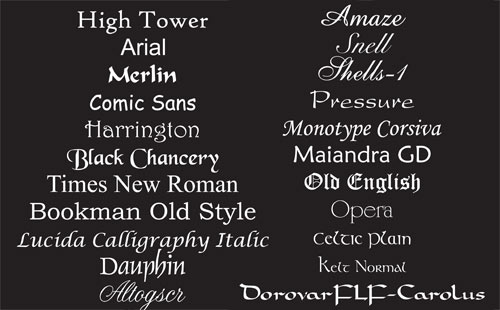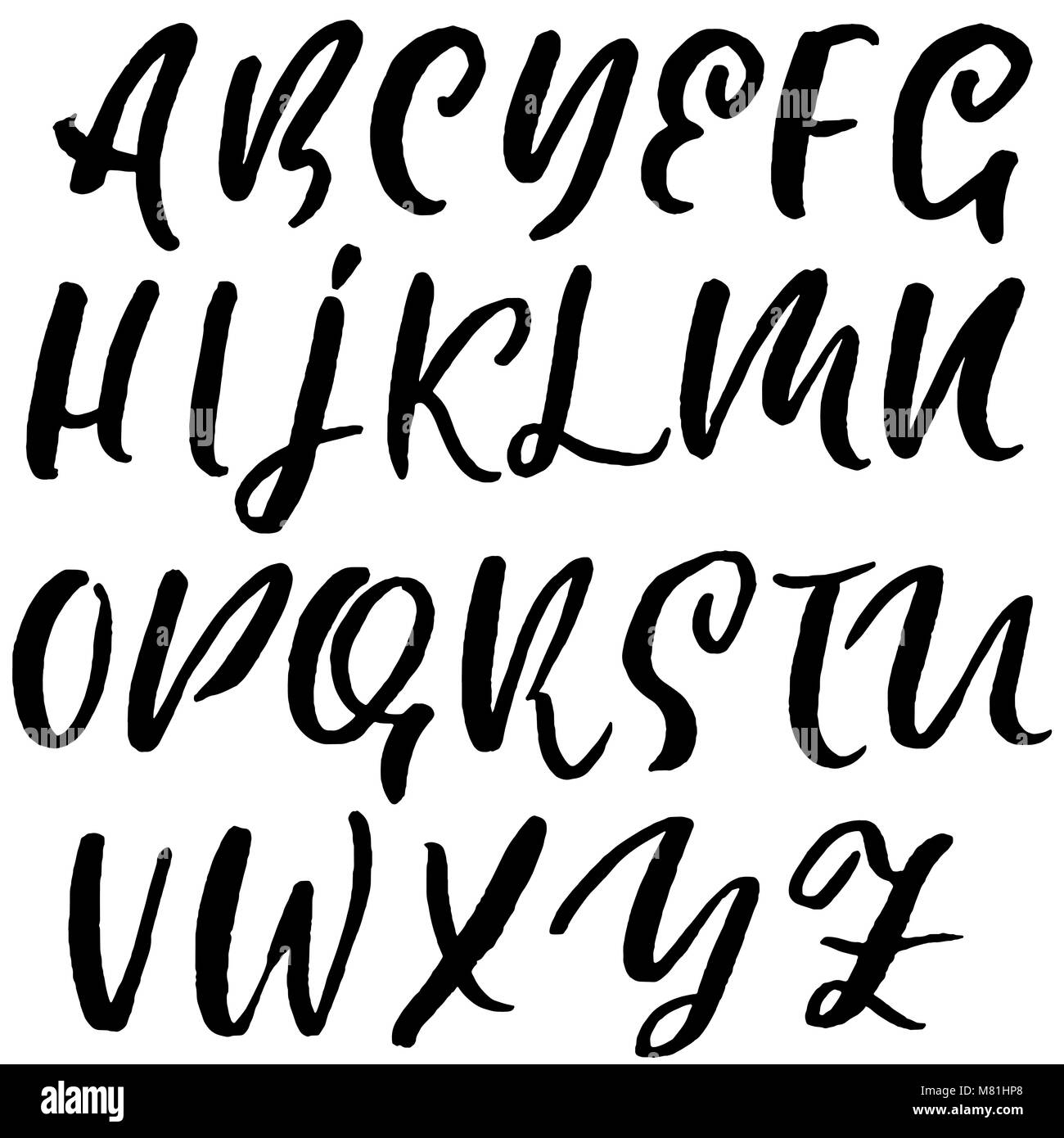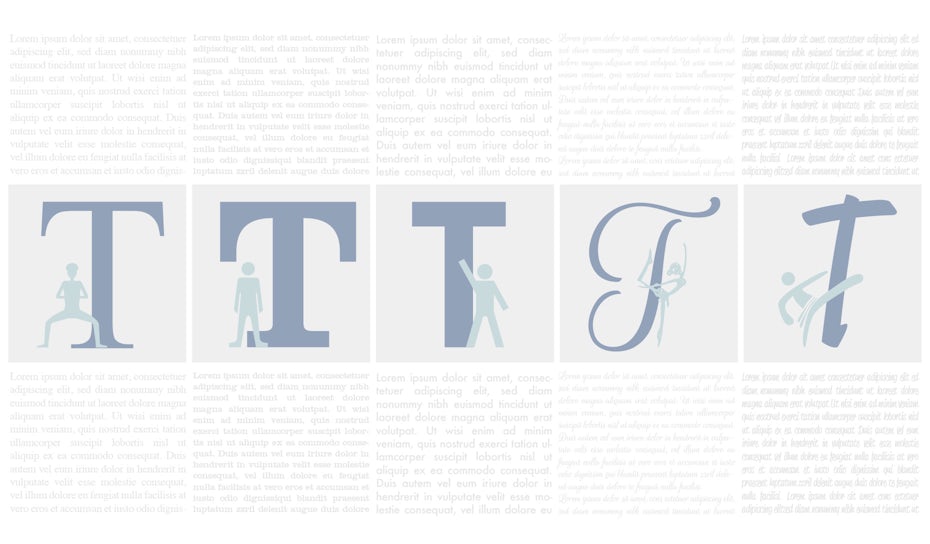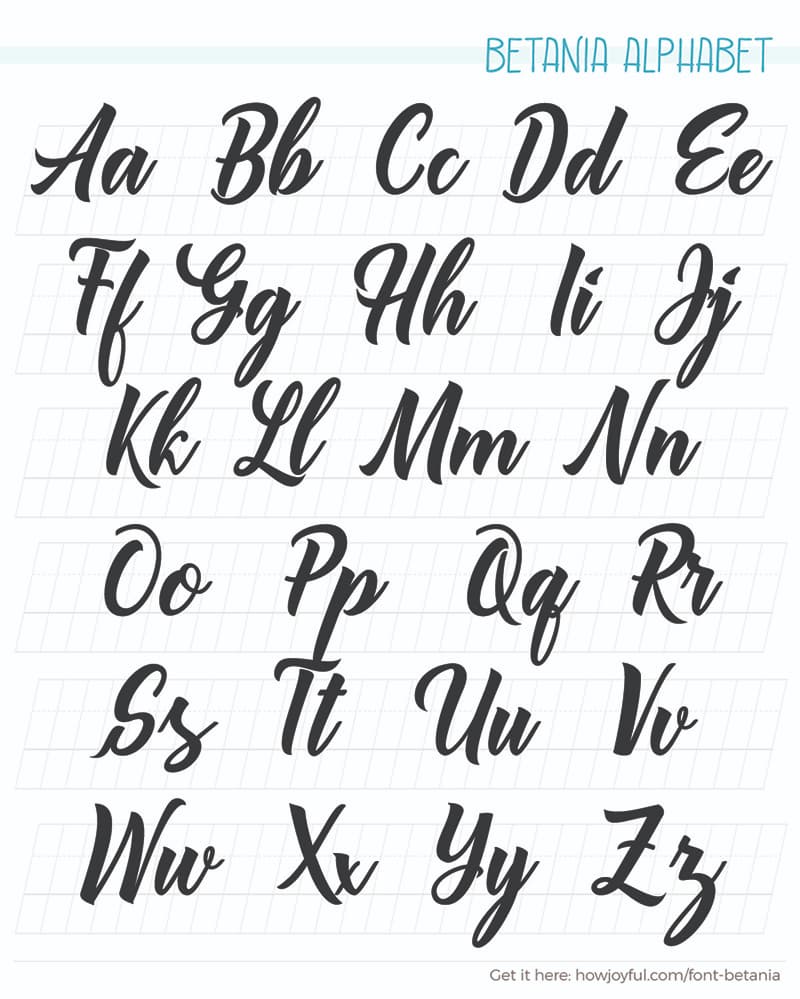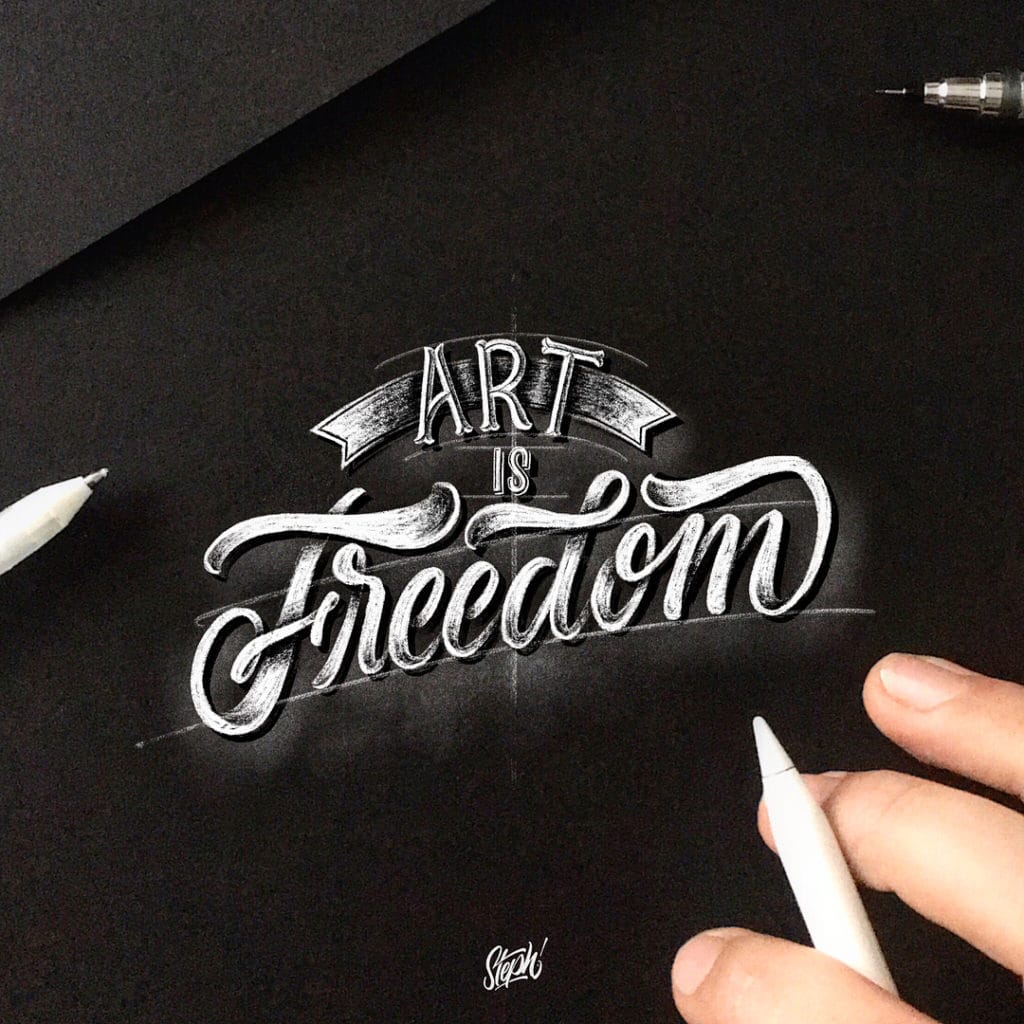
Different lettering styles fonts. These handwritten fonts are drawn using any kind of writing instrument like pen pencil felt marker brush etc. So currently this is basically a duplicate of the above but I think Ill try to collect a few more cool text fonts like the old enlgish one and.
Sans means without in French. α 𝕖rd 爪ᶤЖ 𝕠ℱ SЎ𝐦вσŞ which is generated from hundreds of different Unicode sets. Typically sans- serif fonts are used as headings or captions.
Bold Text is one of the most used text style on the internet. The quick brown fox jumps over the lazy dog. A handwritten typeface that stands on its own this font features eight different lettering styles so that you can get the most out of your creativity.
Styles like monoline where lines are all the same weight and block letters where the letters never connect or touch fall into this category. Browse dozens of font categories such as calligraphy handwriting script and more. Click to find the best 86 free fonts in the Printing style.
The brain has to work a little harder to read serif because the overall shape of the letter isnt as clear. Hand lettering is an art form that takes practice and discipline and can mimic calligraphy or other styles. New fonts added daily.
When you start modifying the shapes of the letters you are now illustrating hand-drawn lettering. Fancy style 27 Font. Aᴀ Underline text strikethrough and overline Decorate your text with multiple lines below through and above it.
Underline strikethrough and overline your text with this font generator. Hand-lettered is the style where you draw each letter individually as opposed to writing them as in cursive or calligraphy. Oct 22 2018 - Explore Angelica Kings board Different lettering styles on Pinterest.